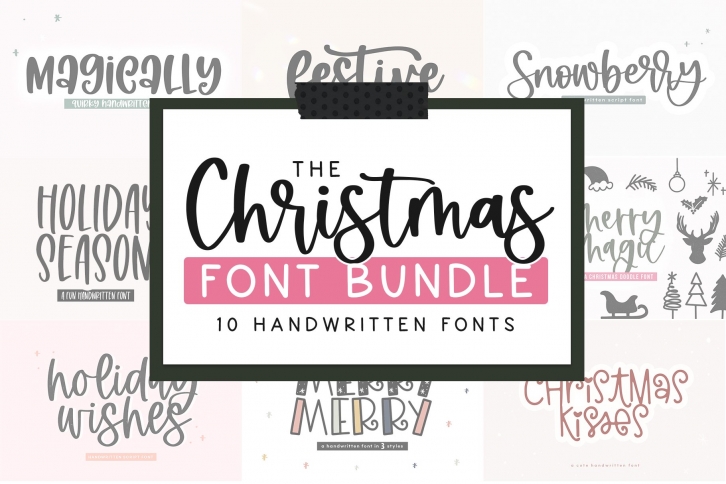
Christmas Bundle is a trendy and unique font with an authentic style. It was designed by KA Designs and it's a great choice for creative people who need such a font. It was released on September 8, 2021 and the file size is 18.24 MB. Christmas Bundle will add an organic vibe to any design idea!